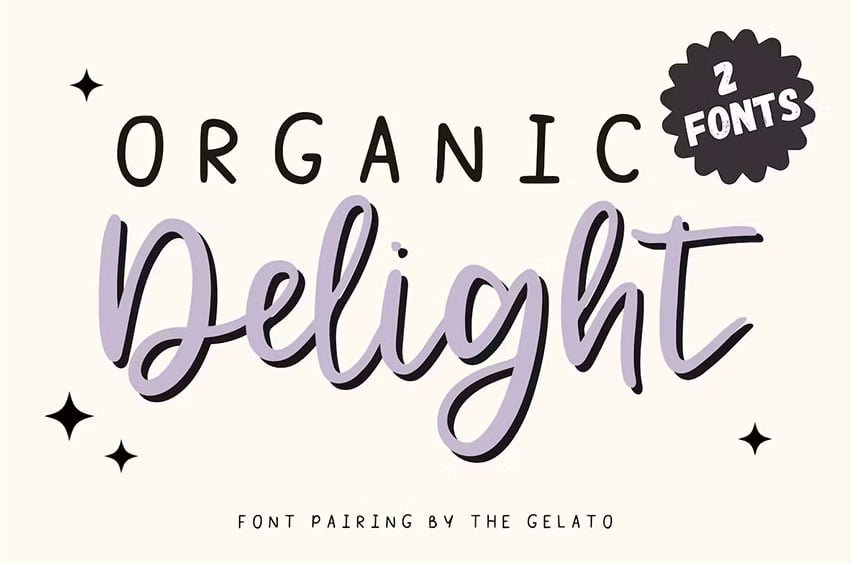
Organic Delight Font is a font pairing SET OF 2 Handwritten + lettering Font that can be used as a Handwritten Script Font Bundle, Sweet Cursive Font, Farmhouse Font, Canva Font Pairing, Logo Font Duo, Branding Font Pairing, Font for Vlog, Handwritten Font Duo, Modern Font Pairing, Canva Font Pairing, Branding Font Pairing, Logo Font Duo, Font for Vlog, Handwritten Cricut Font Duo.
Organic Delight Monoline Handwritten: Multilingual Support
Organic Delight Calligraphy: English Only